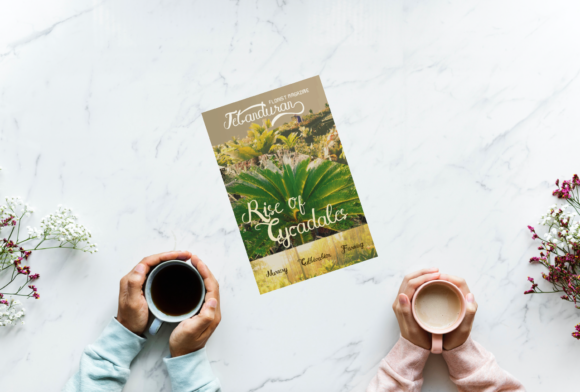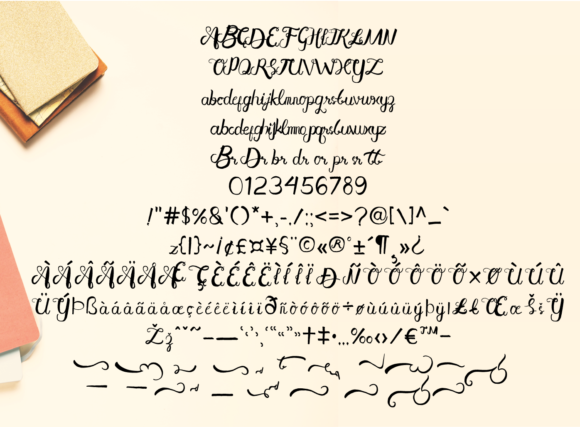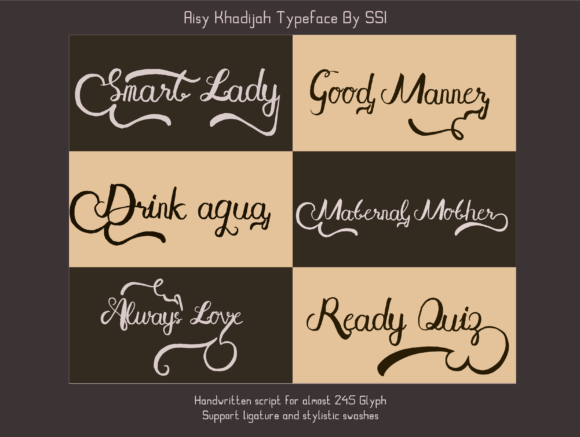
Aisy Khadijah Font: Elevate Your Design with Elegant Cursive Style
Are you a designer or crafter looking to add a touch of sophistication and elegance to your projects? Look no further than the Aisy Khadijah font, a stunning handwritten cursive font that is sure to make your designs stand out. In this article, we’ll explore the unique features of the Aisy Khadijah font, its uses, and benefits, as well as provide tips on how to incorporate it into your design workflow.
The Aisy Khadijah Font: A Cursed Handwritten Beauty
The Aisy Khadijah font is a one-of-a-kind, cursed handwritten font that exudes a sense of refinement and poise. Its elegant, flowing lines and curves make it perfect for adding a touch of sophistication to a wide range of design projects, from wedding invitations and stationery to branding and packaging.
What sets the Aisy Khadijah font apart is its unique, hand-crafted aesthetic. Each letter and character has been carefully designed to create a sense of fluidity and movement, giving the font a dynamic, organic feel that is sure to capture the attention of your audience.
Key Features of the Aisy Khadijah Font
So, what makes the Aisy Khadijah font so special? Here are just a few of its key features:
- Elegant cursive style: The Aisy Khadijah font features a beautiful, flowing cursive style that is perfect for adding a touch of sophistication to your designs.
- Handwritten aesthetic: Each letter and character has been carefully hand-crafted to create a unique, organic feel that sets the font apart from more traditional, digital fonts.
- Dynamic and fluid: The Aisy Khadijah font has a dynamic, fluid feel that makes it perfect for use in a wide range of design projects, from elegant wedding invitations to bold branding and packaging.
Uses and Benefits of the Aisy Khadijah Font
So, how can you use the Aisy Khadijah font in your design work? Here are just a few ideas:
- Wedding invitations and stationery: The Aisy Khadijah font is perfect for creating elegant, sophisticated wedding invitations and stationery that will set the tone for a beautiful and memorable wedding.
- Branding and packaging: The font’s unique, hand-crafted aesthetic makes it perfect for use in branding and packaging design, where it can help to create a distinctive and memorable visual identity.
- Signage and display graphics: The Aisy Khadijah font is also well-suited for use in signage and display graphics, where its elegant, cursive style can help to create a sense of drama and sophistication.
Tips for Using the Aisy Khadijah Font
Here are a few tips for incorporating the Aisy Khadijah font into your design workflow:
- Pair it with contrasting fonts: To create visual interest and add depth to your designs, try pairing the Aisy Khadijah font with contrasting fonts, such as bold sans-serif fonts or elegant serif fonts.
- Experiment with different colors and textures: The Aisy Khadijah font looks great in a wide range of colors and textures, so don’t be afraid to experiment and find the combination that works best for your design.
- Use it sparingly: While the Aisy Khadijah font is beautiful and elegant, it can also be overwhelming if overused. Try using it sparingly, as a headline or title font, to create maximum impact.
In conclusion, the Aisy Khadijah font is a stunning, cursed handwritten font that is sure to elevate your design work to the next level. Its elegant, flowing lines and curves make it perfect for adding a touch of sophistication to a wide range of design projects, from wedding invitations and stationery to branding and packaging. With its unique, hand-crafted aesthetic and dynamic, fluid feel, the Aisy Khadijah font is a must-have for any designer or crafter looking to create beautiful, memorable designs.